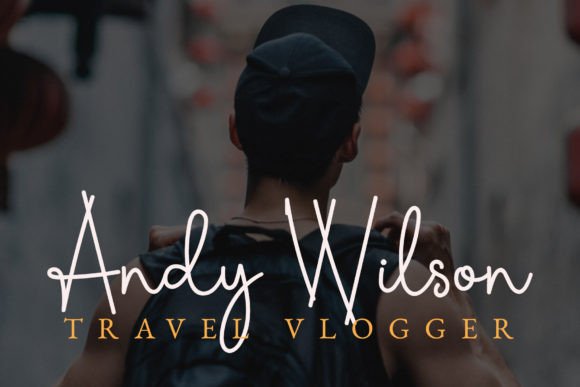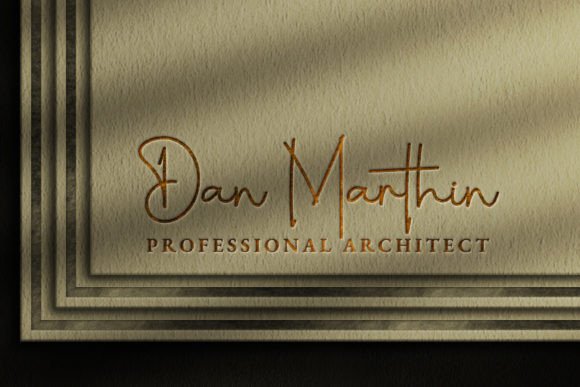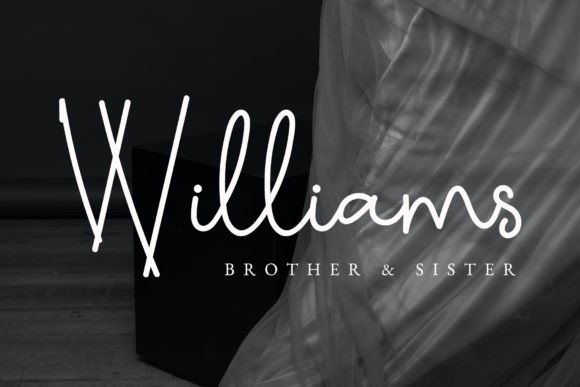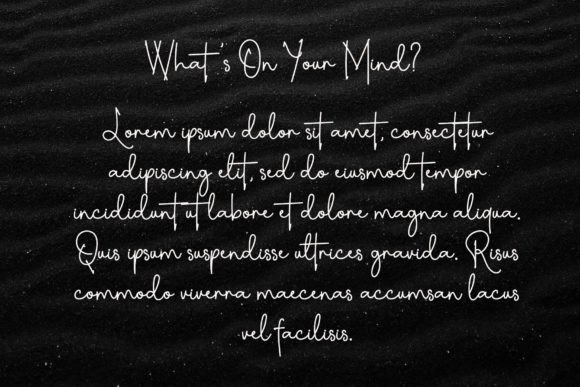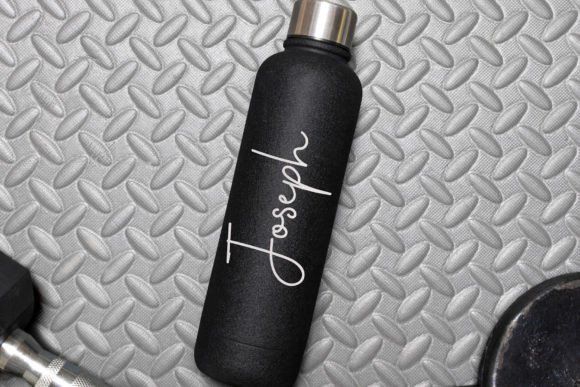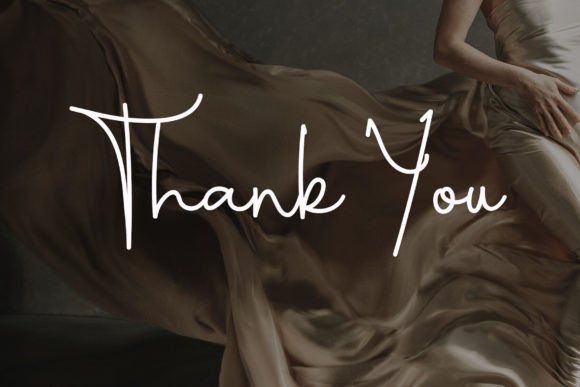
Introducing Father Font: Elevate Your Designs with Elegance and Sophistication
In the world of typography, few fonts manage to convey the perfect blend of elegance, sophistication, and personal touch. Father Font is one such exceptional script font that has been making waves in the design community. Its stylish and incredibly elegant appearance makes it an ideal choice for a wide range of design projects, from wedding invitations and thank you cards to quotes, greeting cards, logos, and business cards.
The Essence of Father Font
Father Font is not just a typeface; it’s a statement of refinement and luxury. Its fluid strokes and carefully crafted letterforms exude a sense of sophistication that can instantly elevate the aesthetic of any design. Whether you’re a professional designer looking to impress clients or a crafter aiming to add a personal touch to your projects, Father Font offers the versatility and elegance you need.
Weddings and special events are all about details, and the invitation sets the tone for the entire celebration. With Father Font, you can create stunning wedding invitations that are both beautiful and memorable. Its elegant script style adds a touch of romance and sophistication, making it perfect for wedding stationery, save-the-date cards, and even event branding.
Beyond Weddings: Exploring Other Uses of Father Font
The versatility of Father Font extends far beyond wedding designs. Here are some other creative ways you can use this beautiful font:
- Thank You Cards: Add a personal and elegant touch to your thank you notes with Father Font.
- Quotes and Typography: Use Father Font to create stunning quote posters, social media graphics, and typographic artworks.
- Greeting Cards: From birthday wishes to holiday greetings, Father Font can help you create cards that stand out.
- Logos and Branding: For businesses that want to convey elegance and sophistication, Father Font can be a great choice for logos and brand identity.
- Business Cards: Stand out in the professional world with elegant business cards designed using Father Font.
Why Choose Father Font?
With so many fonts available, why should you choose Father Font for your projects? Here are a few compelling reasons:
- Elegance: Its stylish and elegant appearance can add a touch of luxury to any design.
- Versatility: Suitable for a wide range of projects, from personal to professional.
- Readability: Despite its script nature, Father Font remains highly readable, making it perfect for both headings and body text.
- Uniqueness: Stand out from the crowd with a font that is both distinctive and memorable.
Tips for Using Father Font Effectively
To make the most of Father Font, consider the following tips:
- Pair with Complementary Fonts: Combine Father Font with simpler sans-serif or serif fonts for contrast and visual interest.
- Adjust Letter Spacing: For better readability, especially in longer texts, adjust the letter spacing to ensure a comfortable look.
- Use it Sparingly: While Father Font is elegant, using it sparingly can make it more impactful. Consider using it for headings or key messages.
Father Font is more than just a script font; it’s a tool for designers and crafters to add a touch of elegance and sophistication to their projects. Its versatility, readability, and unique style make it an excellent choice for a variety of design needs. Whether you’re working on wedding invitations, business branding, or personal projects, Father Font can help you achieve a level of refinement that’s sure to impress. So, why settle for ordinary when you can create something extraordinary with Father Font?